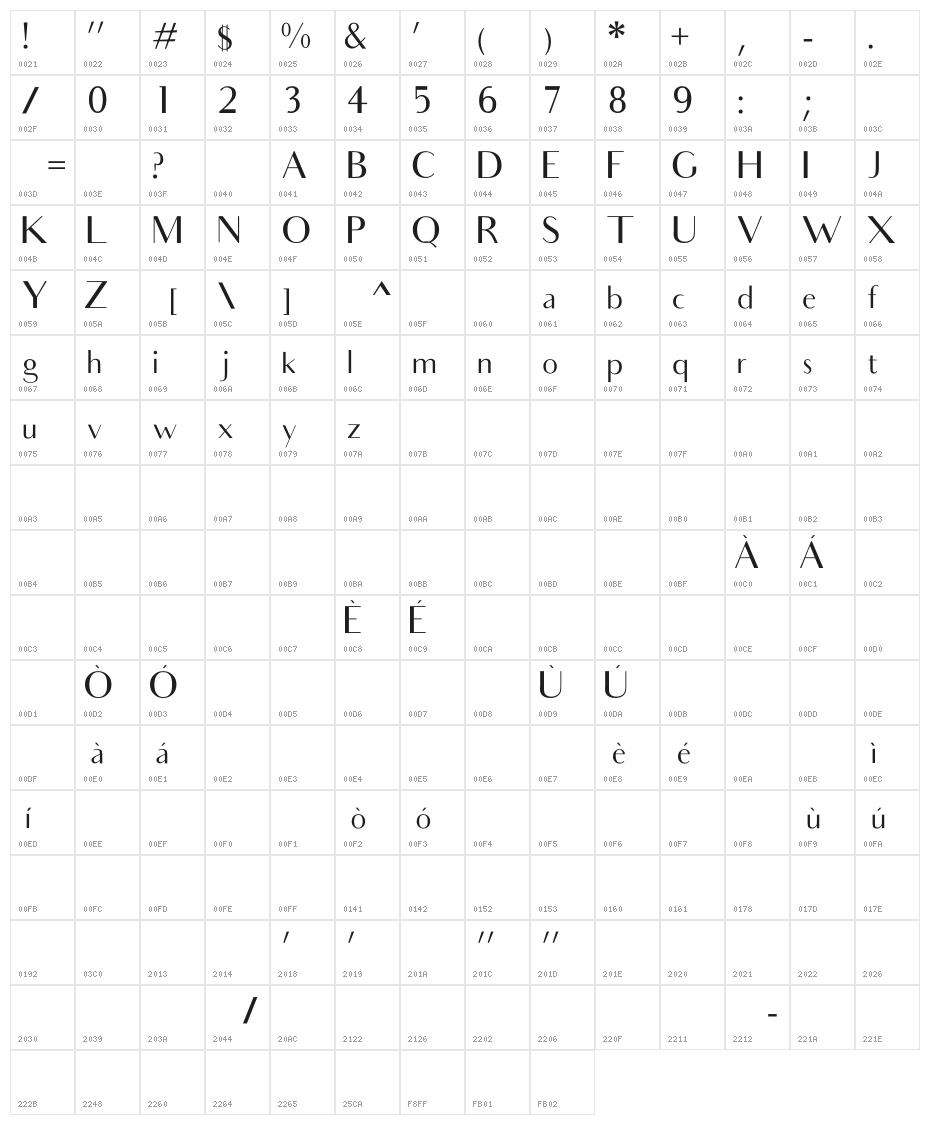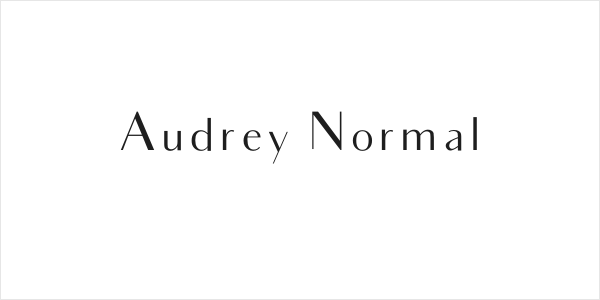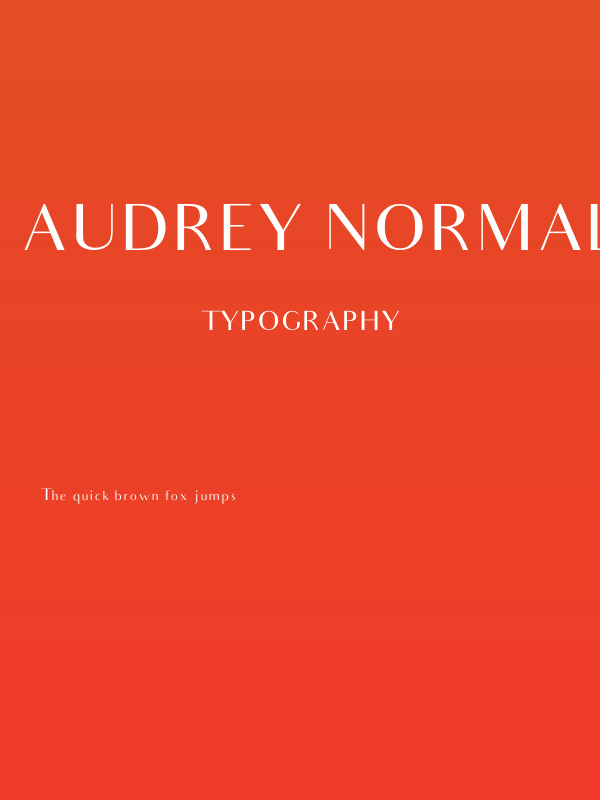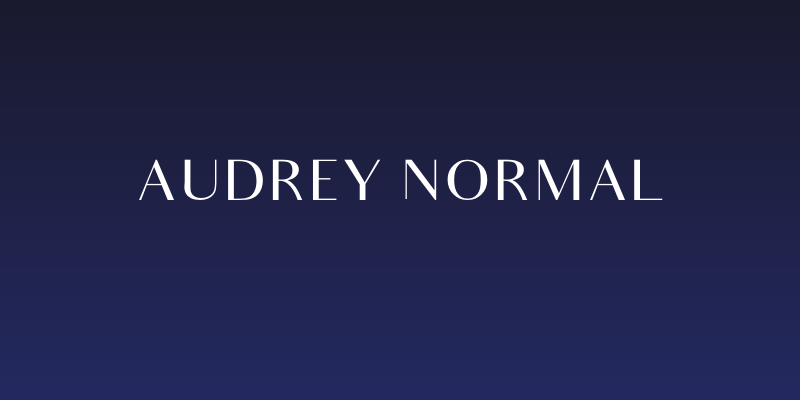
Audrey Normal Font
| Style général | Modern, Elegant |
| Cas d'utilisation | Headlines, Logos, Invitations |
| Projets proposés | Ideal for fashion magazines, luxury branding, wedding invitations, and high-end product packaging. |